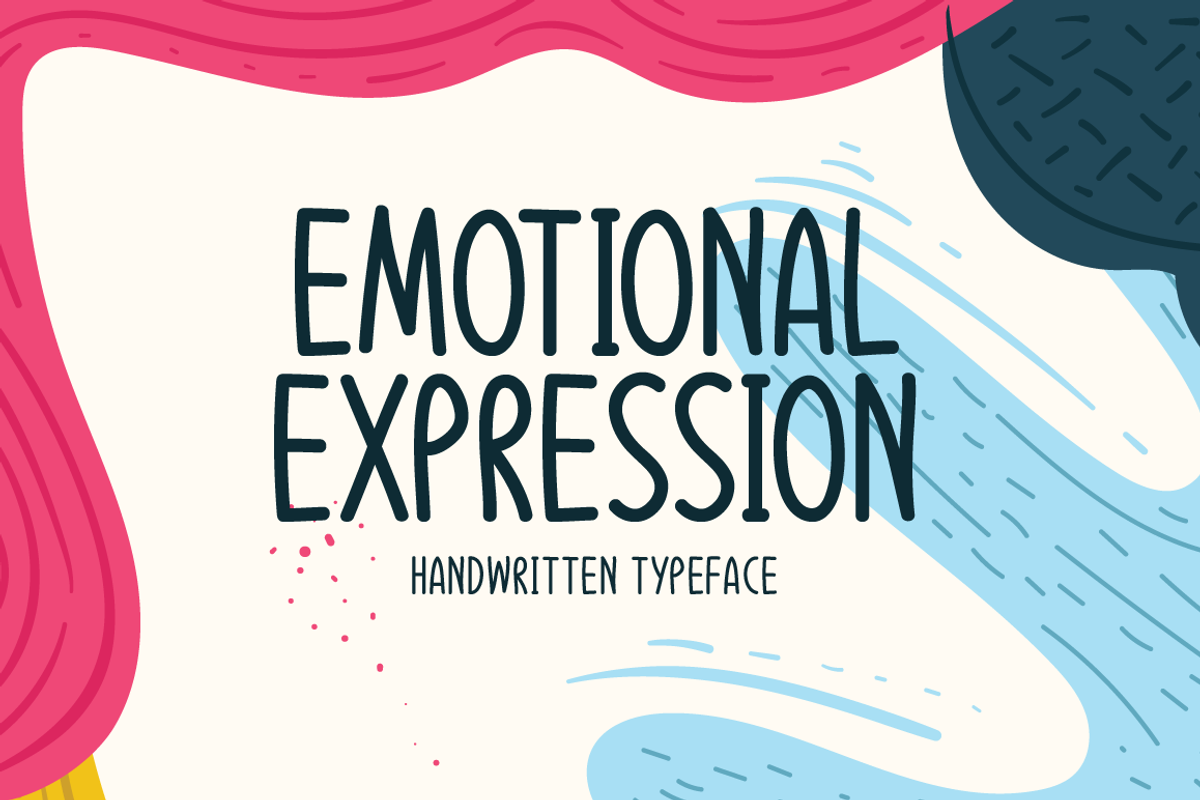
The Emotional Expression Typeface Free Download is a bold and expressive font designed to bring depth and character to your designs. With its unique letterforms and dynamic style, this typeface is perfect for creating impactful logos, posters, branding, and creative projects that need to evoke emotion and energy. Whether you're designing for a personal project, event, or creative brand, Emotional Expression adds a distinctive, engaging vibe to your work.
Emotional Expression Typeface Free Download is ideal for designers looking to add personality and emotion to their typography. Perfect for projects that require bold, attention-grabbing designs, this font will help your work stand out. Download it today and bring an emotional and impactful style to your creative projects!